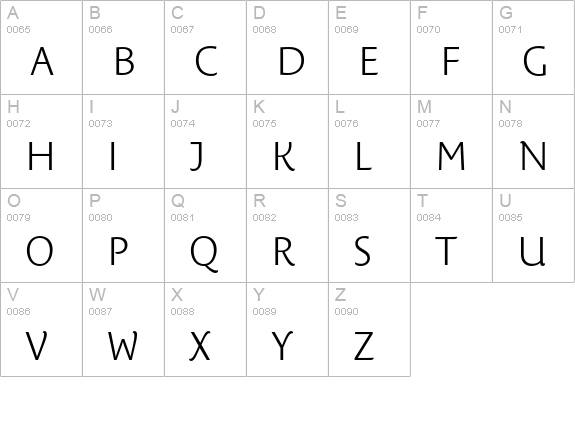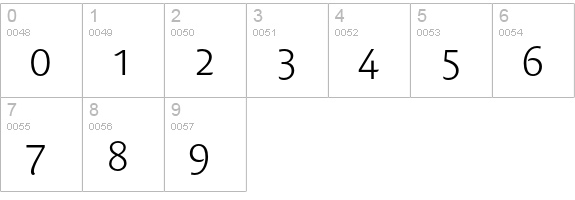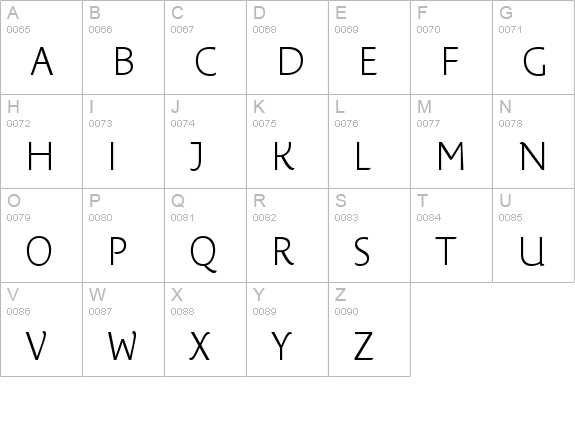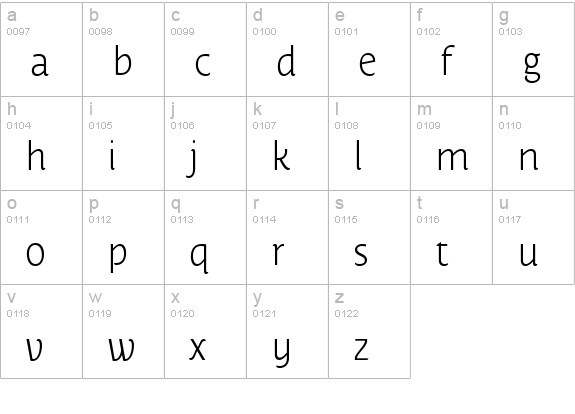
Costa Ptf Light is a refined, elegant variant in the Costa typeface family \xE2\x80\x94 well suited to elegant body text, refined sub-headings, and luxury branding.
Costa Ptf Light font is a versatile typeface that exudes elegance and sophistication. Its clean lines and modern aesthetic make it perfect for a wide range of design projects, from branding to editorial design. The slender and graceful letterforms of Costa Ptf Light add a touch of refinement to any text, making it a popular choice among designers and creatives. The best part is that Costa Ptf Light font is completely free! You can easily download this stunning typeface at FontsMarket.com and start using it in your projects right away. Whether you're working on a website, poster, or logo design, Costa Ptf Light is sure to elevate your work and impress your audience. Don't miss out on this fantastic opportunity to enhance your designs with the beauty of Costa Ptf Light font - download it now and let your creativity shine!